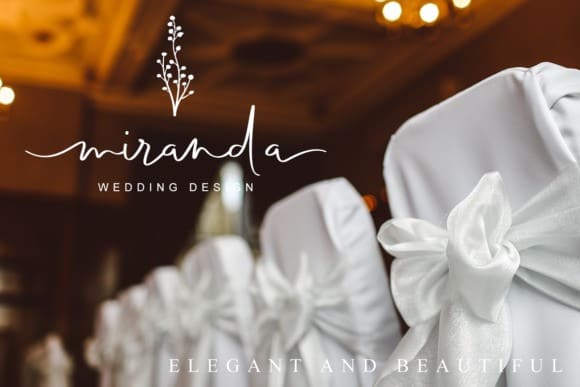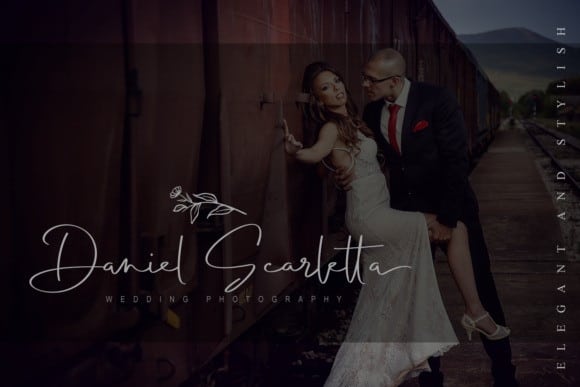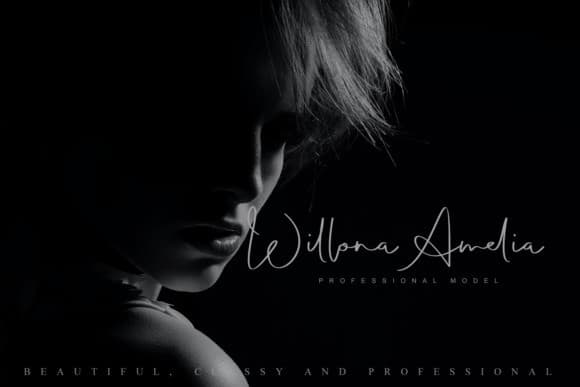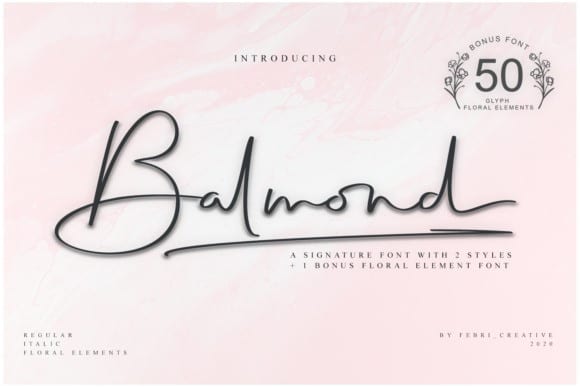
Balmond Handwritten Font
Balmond Handwritten Font is a beautiful script based on manual hand writing. Inspired by old-fashioned calligraphy script, so classy and classic! Made from font designer named Febri Creative. It’s a delicate and elegant handwritten font with cute floral elements. It looks stunning on wedding invitations, thank you cards, quotes, greeting cards, logos, business cards and every other design which needs a handwritten touch.